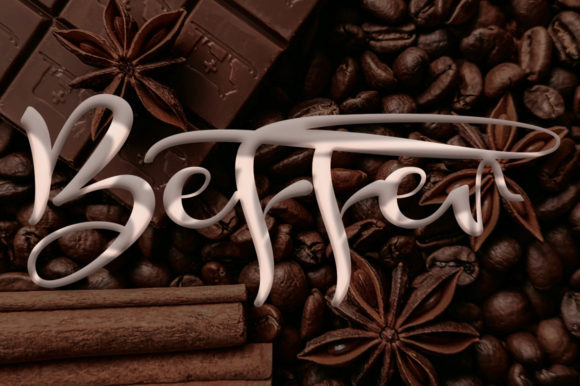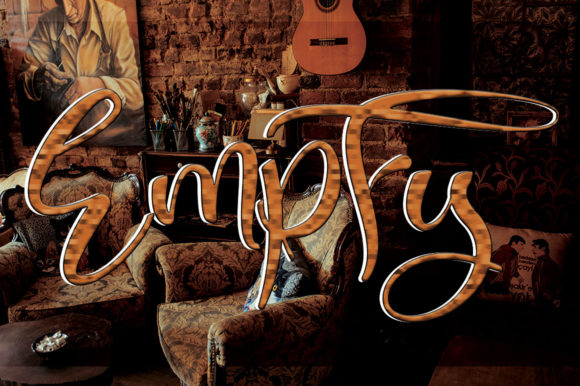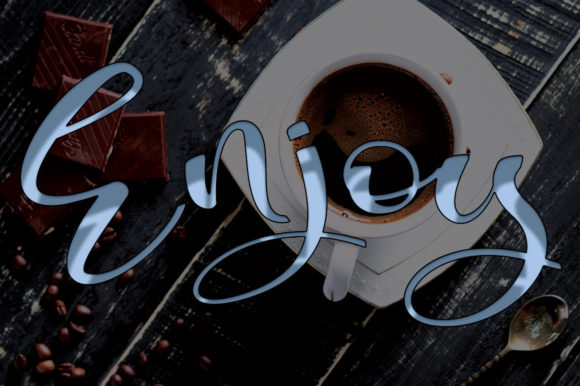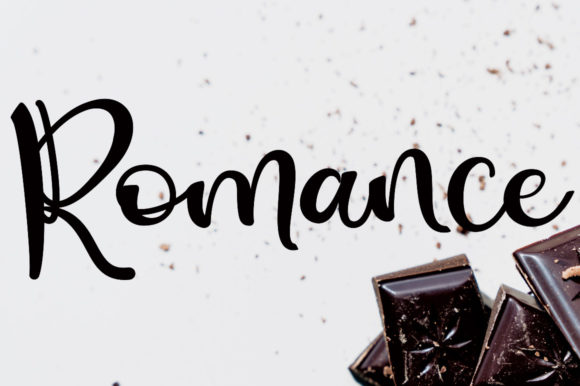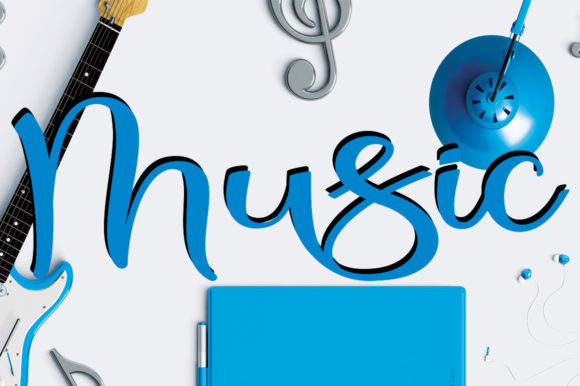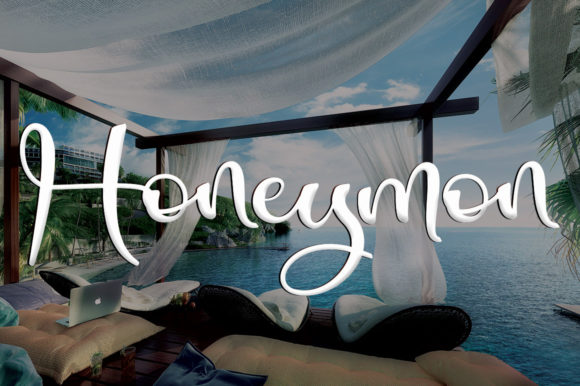
Coffee Font: Elevate Your Designs with this Exquisite Script Font
Are you a designer or crafter looking for a font that can add a touch of elegance and sophistication to your creations? Look no further than Coffee Font, a beautiful script font designed to make your designs stand out. In this article, we’ll explore the features and benefits of Coffee Font, and show you how it can elevate your designs to the next level.
What is Coffee Font?
Coffee Font is a stunning script font that is perfect for a variety of design applications, including product packaging, invitation cards, t-shirt screen printing, shop names, event posters, and more. Its elegant and refined lettering makes it an excellent choice for designers and crafters who want to add a touch of luxury and sophistication to their creations.
Key Features of Coffee Font
- Exquisite Lettering: Coffee Font features beautiful, hand-crafted lettering that is both elegant and refined.
- High-Quality Vibes: This font is designed to give your designs a high-end feel, making it perfect for projects that require a touch of sophistication.
- Versatile: Coffee Font can be used for a wide range of design applications, from product packaging to event posters.
- Easily Readable: Despite its elegant nature, Coffee Font is still easily readable, making it perfect for body text and headlines.
Benefits of Using Coffee Font
So why should you choose Coffee Font for your designs? Here are just a few benefits of using this amazing script font:
- Adds Elegance and Sophistication: Coffee Font can instantly elevate your designs and add a touch of luxury and sophistication.
- Stand Out from the Crowd: With its unique and refined lettering, Coffee Font can help your designs stand out from the crowd and grab attention.
- Perfect for Branding: This font is perfect for branding projects, as it can help create a consistent and cohesive visual identity for your business.
Design Applications for Coffee Font
Coffee Font is a versatile font that can be used for a wide range of design applications. Here are just a few ideas to get you started:
- Product Packaging: Use Coffee Font to add a touch of elegance and sophistication to your product packaging.
- Invitation Cards: Create beautiful and elegant invitation cards with Coffee Font.
- T-Shirt Screen Printing: Use Coffee Font to create stunning and unique designs for t-shirt screen printing.
- Shop Names: Use Coffee Font to create a beautiful and eye-catching sign for your shop or business.
- Event Posters: Create stunning event posters with Coffee Font and make your event stand out.
Tips for Using Coffee Font
Here are a few tips for using Coffee Font in your designs:
- Use it Sparingly: Coffee Font is a bold and elegant font, so use it sparingly to avoid overwhelming your design.
- Pair it with Other Fonts: Experiment with pairing Coffee Font with other fonts to create a unique and visually appealing design.
- Adjust the Size and Color: Adjust the size and color of Coffee Font to suit your design and make it stand out.
Coffee Font is an exquisite script font that can elevate your designs to the next level. With its elegant and refined lettering, high-quality vibes, and versatility, it’s perfect for a wide range of design applications. Whether you’re a designer or crafter, Coffee Font is an incredible asset to your font library, and we highly recommend adding it to your collection.